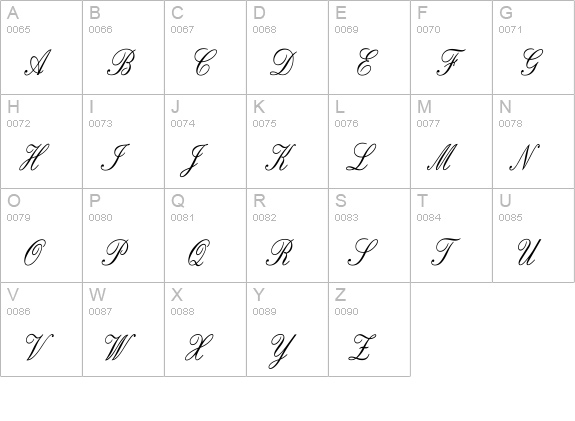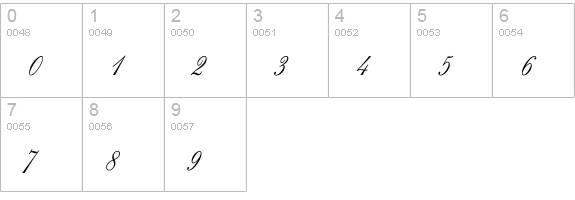
English Cn Font Details
English Cn font is a beautifully designed typeface that exudes elegance and sophistication. This font features clean lines and distinct characters that make it perfect for a wide range of design projects. Whether you're working on a branding project, creating invitations, or designing a website, English Cn font will add a touch of class to your work. The best part about English Cn font is that it is available for free download at FontsMarket.com. This means that you can easily access this stunning font and use it in your projects without any cost. With its timeless appeal and versatile style, English Cn font is sure to elevate your design work to new heights. Don't miss out on the opportunity to enhance your projects with the beauty of English Cn font. Download it for free today at FontsMarket.com and start creating stunning designs that stand out from the rest.